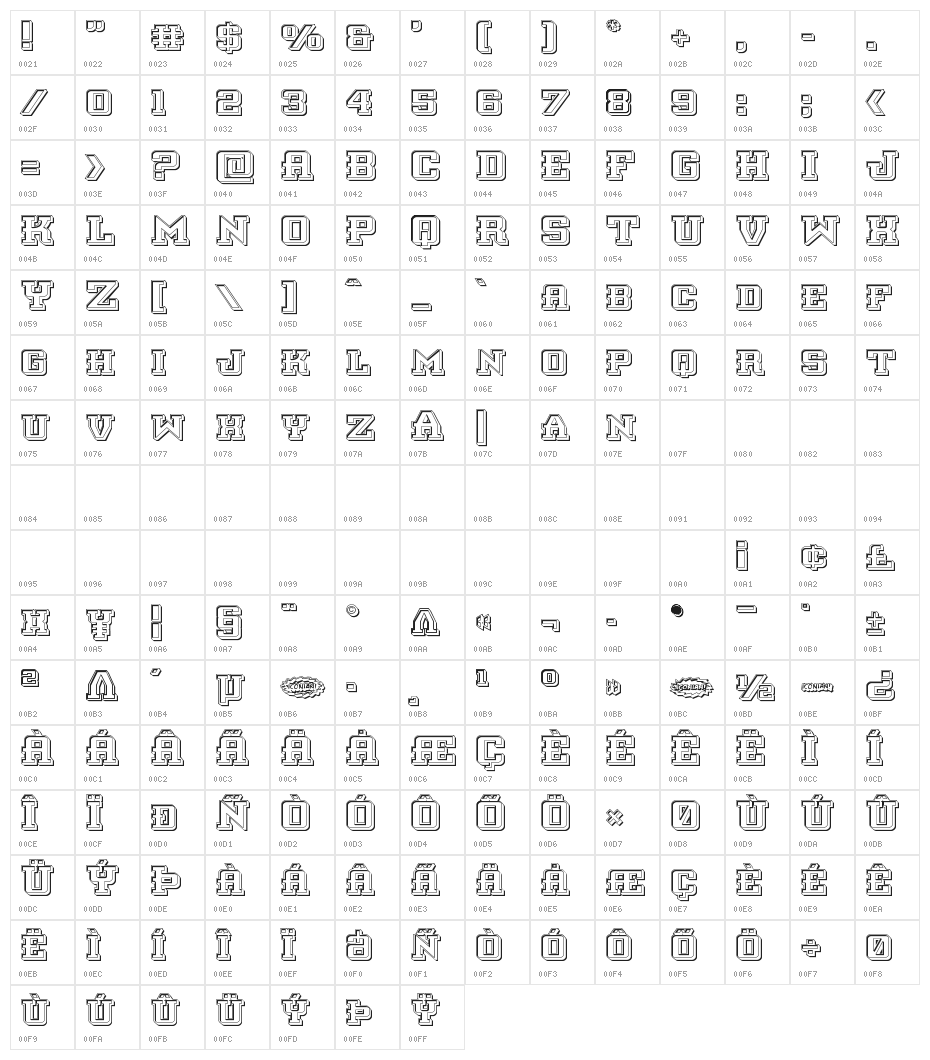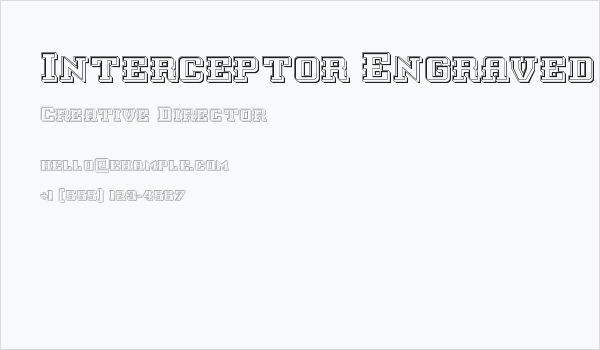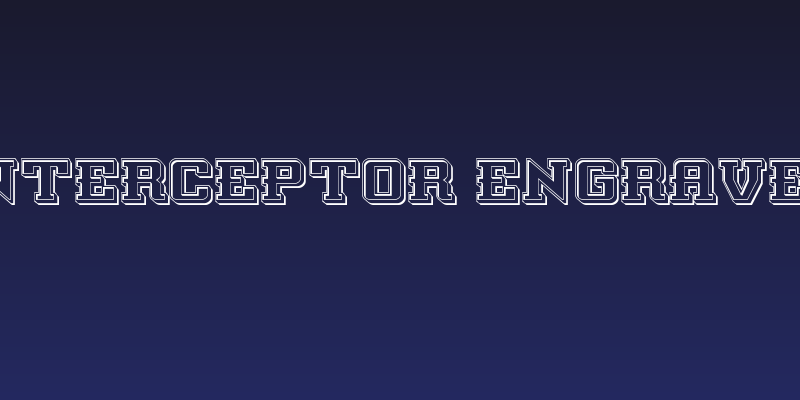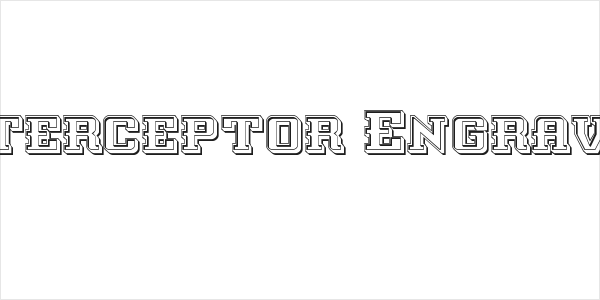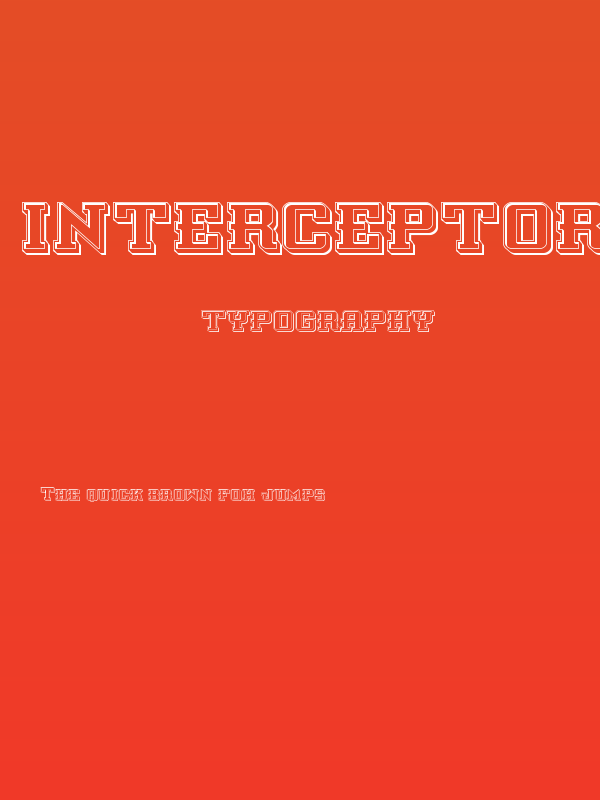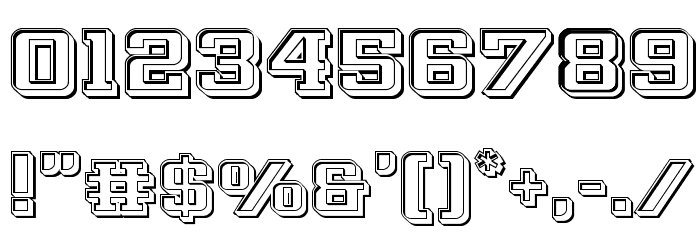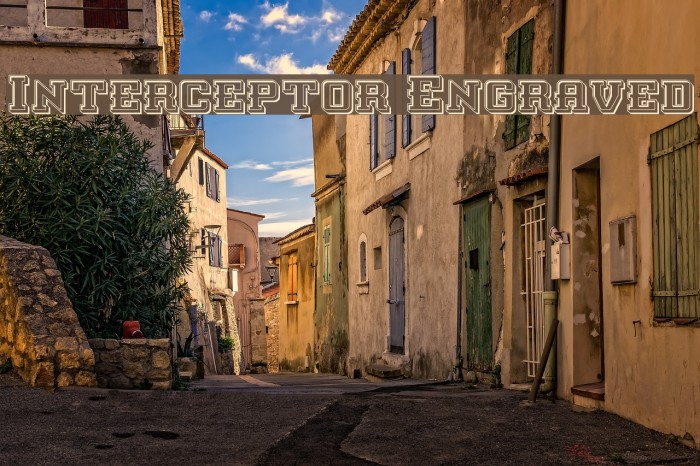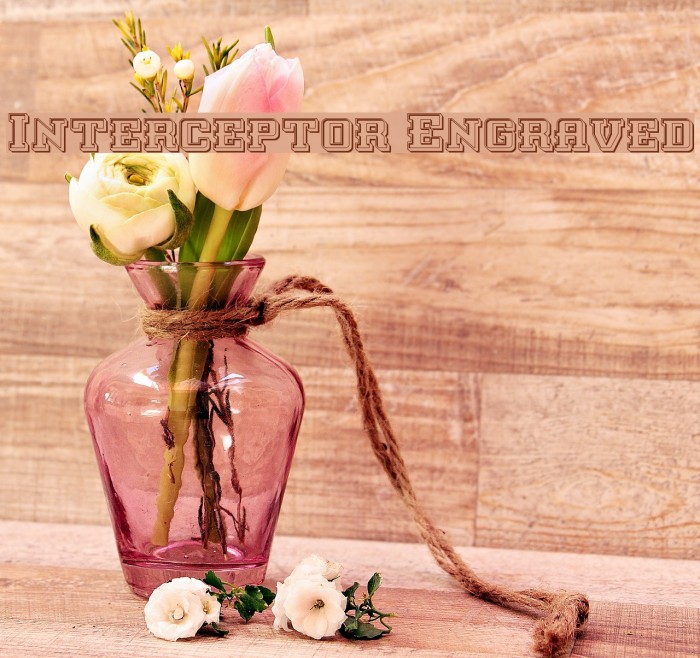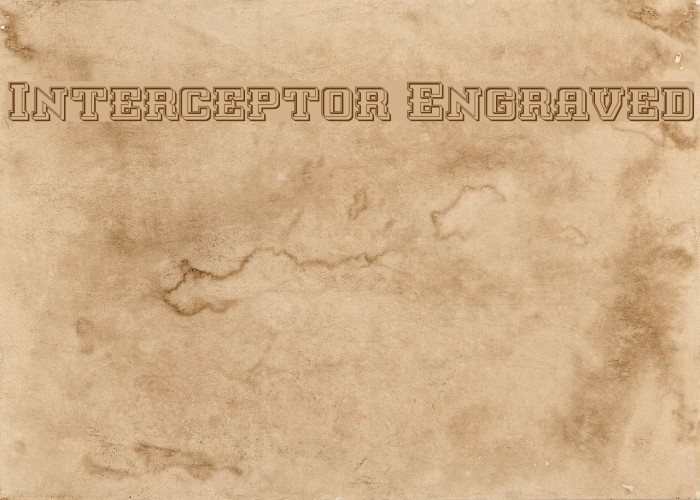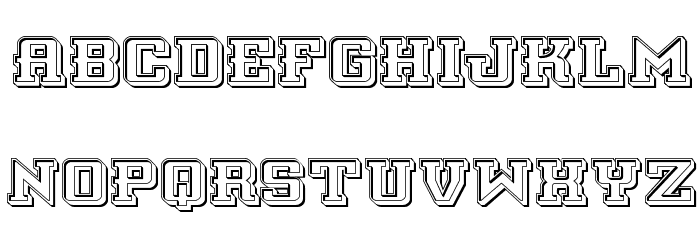
Interceptor Engraved Font
Interceptor Engraved Description
This font features a bold, engraved style with a three-dimensional effect, achieved through its outlined and shadowed design. The characters are uppercase and lowercase, with a consistent geometric structure that gives them a strong, impactful presence. The numbers and special characters maintain the same engraved aesthetic, ensuring uniformity across all glyphs. The font's design is reminiscent of vintage signage or sports team logos, making it ideal for projects that require a bold and dynamic visual impact. Its structured form and shadowing create a sense of depth, making it stand out in any design.
| Proposed Projects | Ideal for sports team logos, vintage posters, signage, and branding that requires a strong visual impact. |